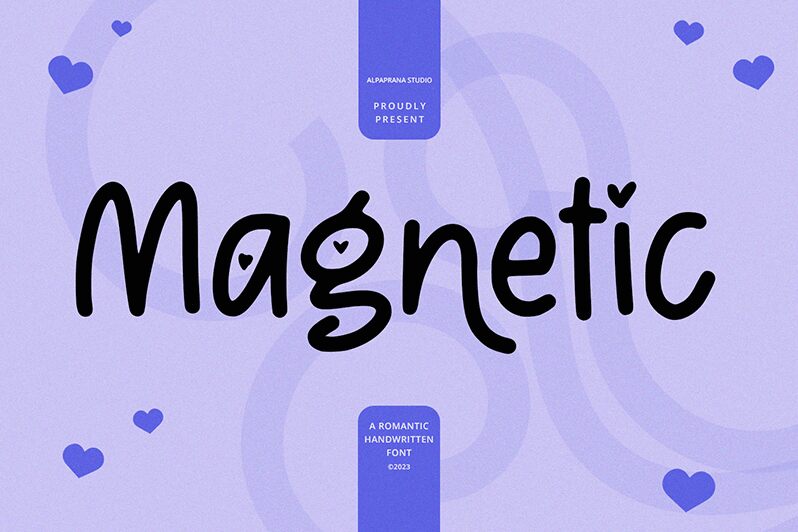
Magnetic
Magnetic font by Alpaprana Studio is a free Valentine font characterized by its whimsical and casual appearance. The typeface has an organic flow with friendly, almost child-like traits that make it expressive. It has a contemporary setting that shines wherever creativity plays a role in design-centric projects.
The font’s use cases are endless: cute greeting cards, notebook covers, packaging designs (sweets/chocolates), adornment of gifts, toy branding, signages for daycare centers and kindergartens, quirky posters or flyers for events/cafés/bars, album or book covers.